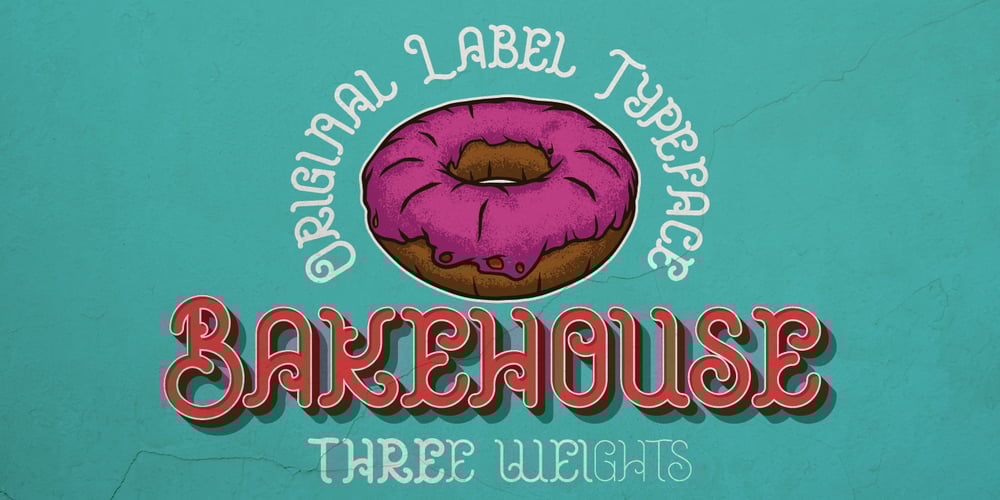
Bakehouse Font Family was designed by Oleg Voznyy and published by Vozzy. Bakehouse contains 3 styles and family package options. Introducing a curly label font named “Bakehouse”. This family includes three styles – Regular, Light and Thin. Samples you can find on the preview. This font will look great on any retro design like poster, t-shirt, label, logo and more.